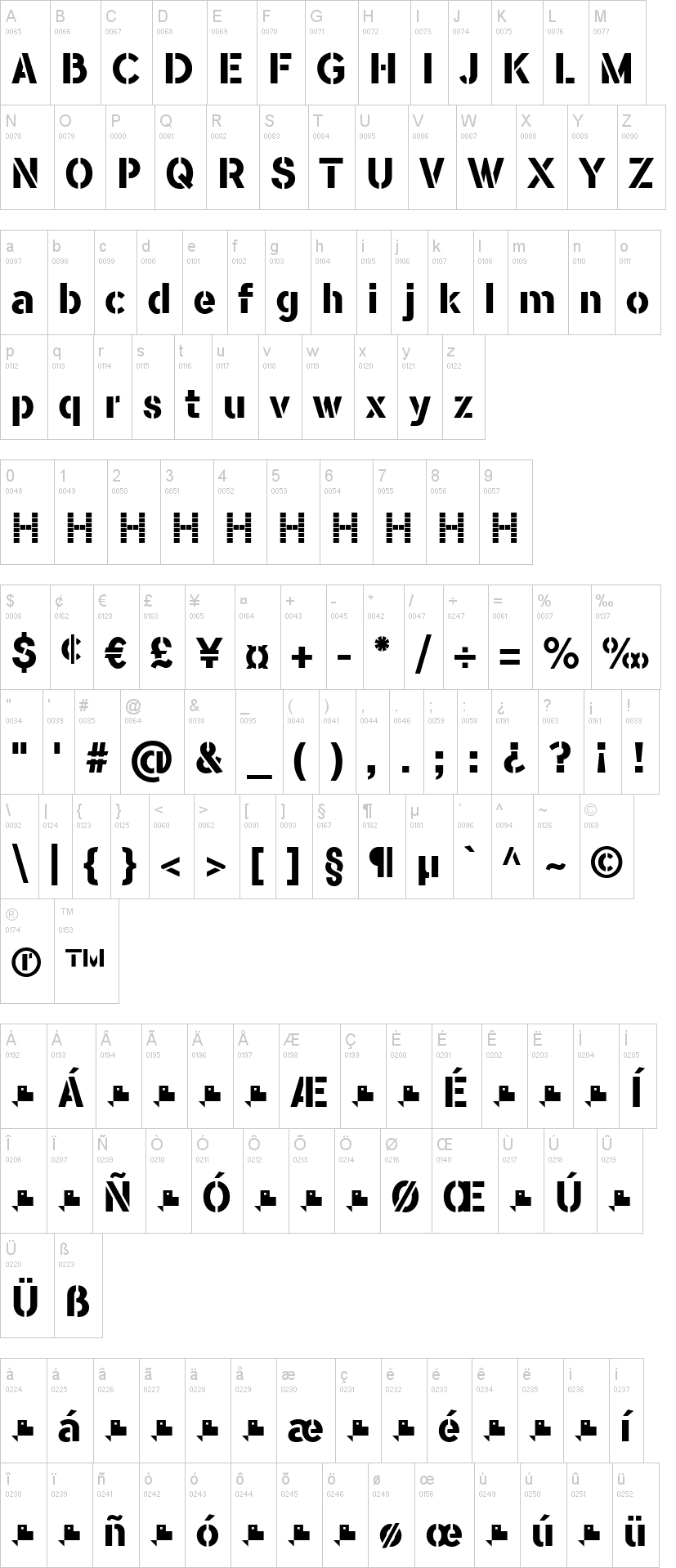
FLAMANTE-STEN-Book.ttfNote of the authorFlamante Stencil is a family of military style typographies without serifs that are released with four weights: Light, Book, Medium and Bold and their corresponding italic versions. They include the Bitcoin symbol.(b#)